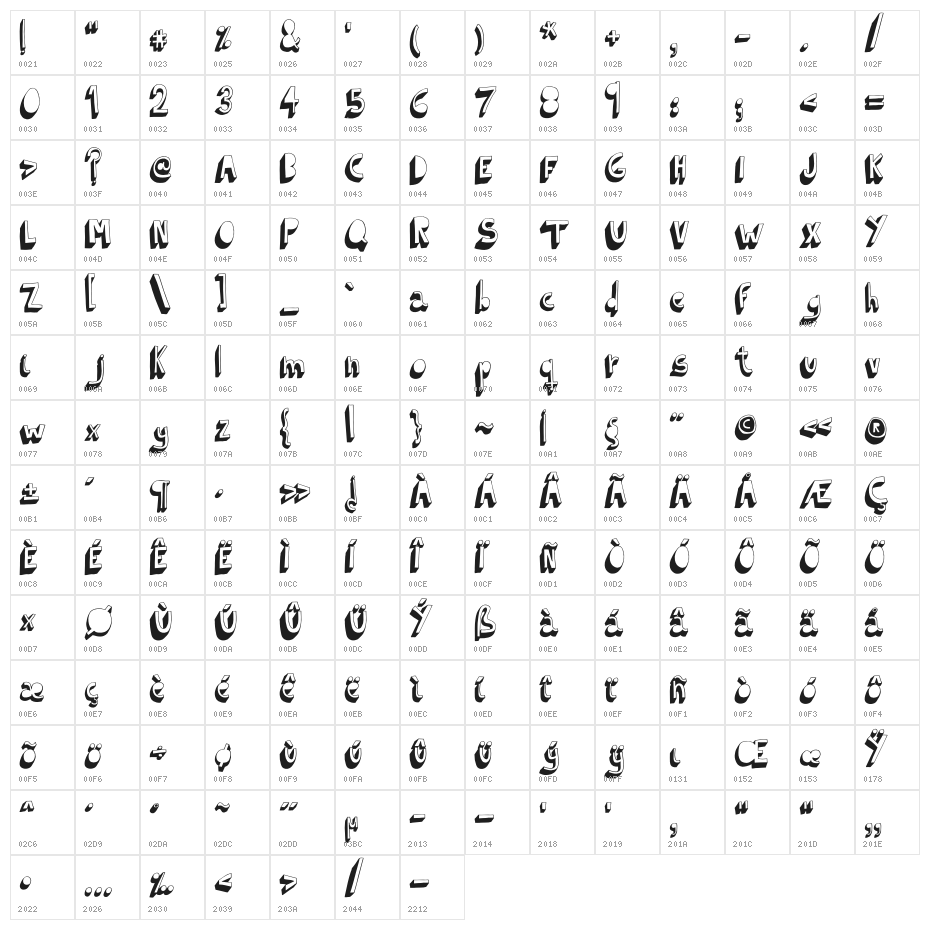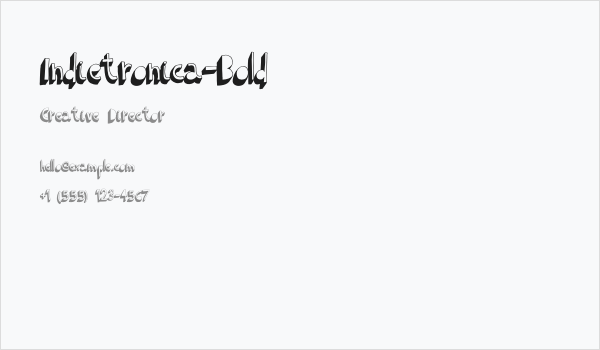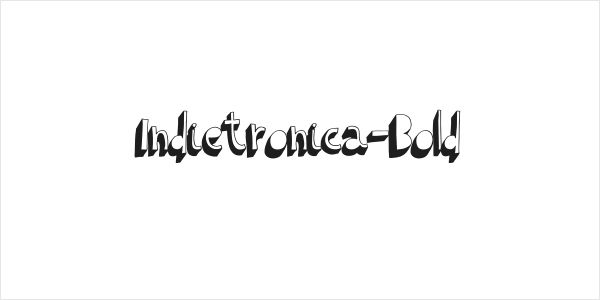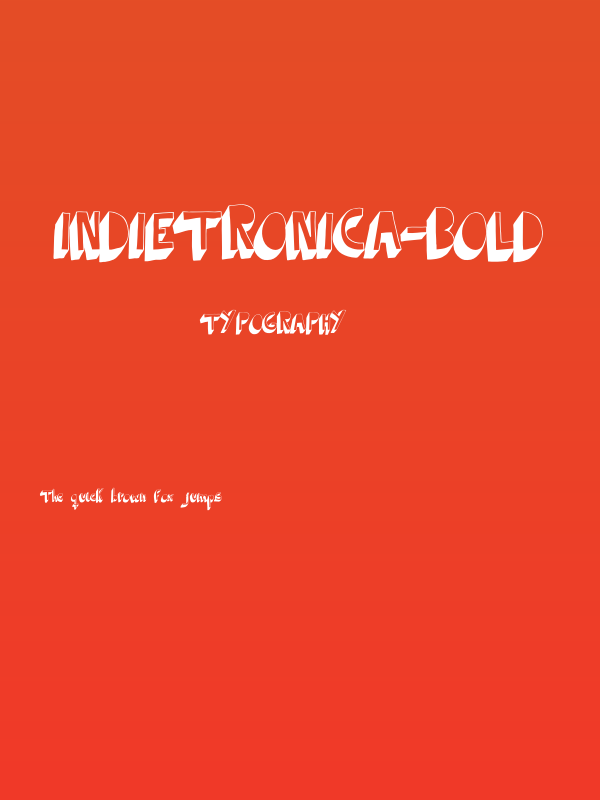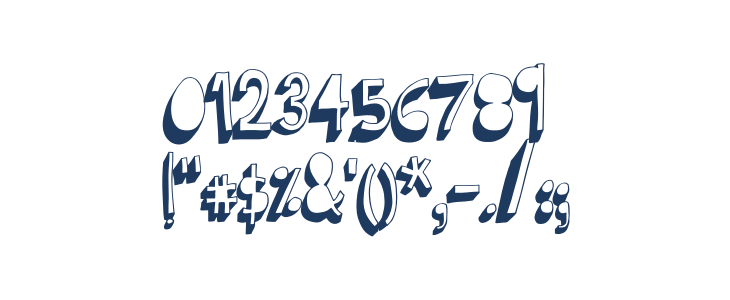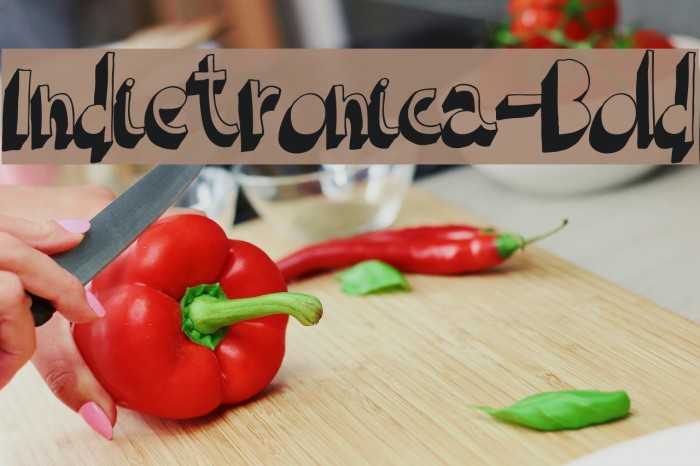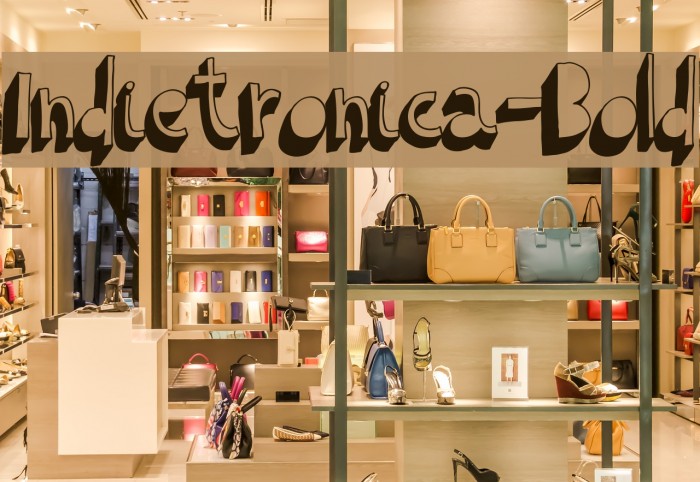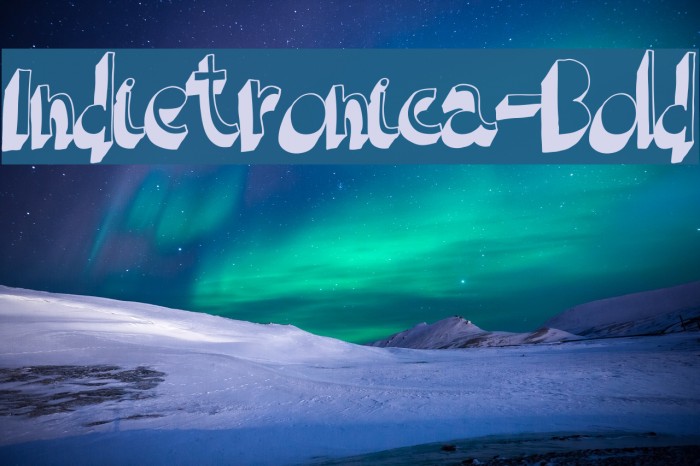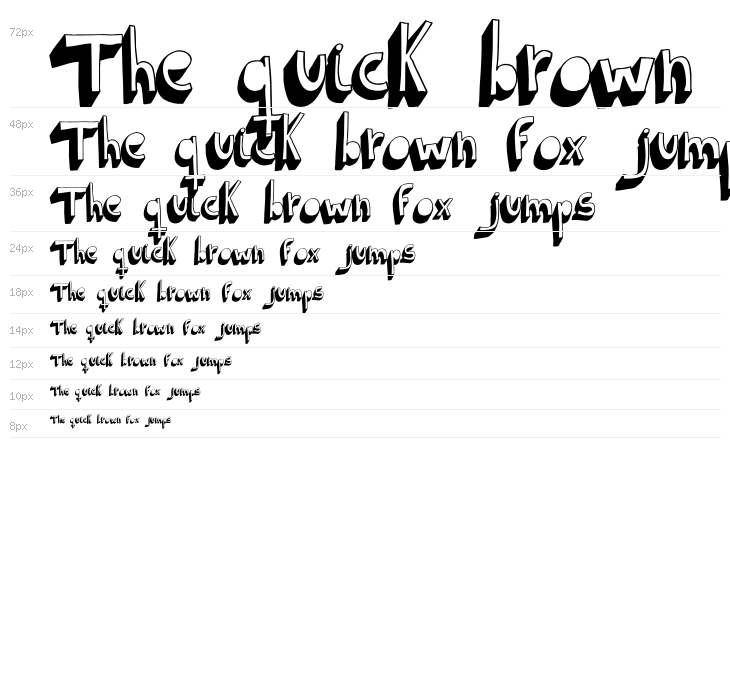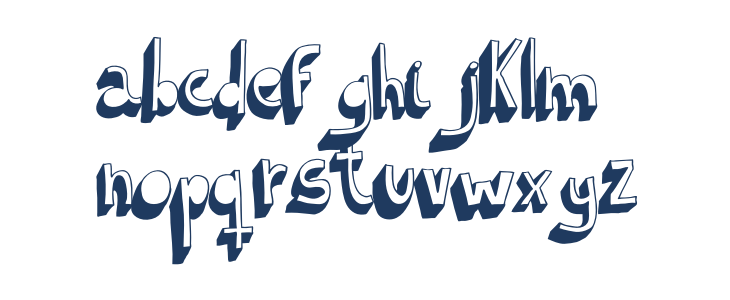
Indietronica-Bold Font
Indietronica-Bold Description
This font features a bold, dynamic style with a three-dimensional effect that gives each character a sense of depth and movement. The uppercase letters are particularly striking, with thick strokes and angular edges that create a sense of energy and playfulness. The lowercase letters maintain this boldness while offering a slightly more rounded and approachable appearance. The numerals and special characters follow the same design principles, ensuring consistency across all elements. The font's unique style makes it ideal for projects that require a strong visual impact.
| Proposed Projects | Ideal for posters, album covers, video game graphics, and branding materials that require a bold and energetic look. |